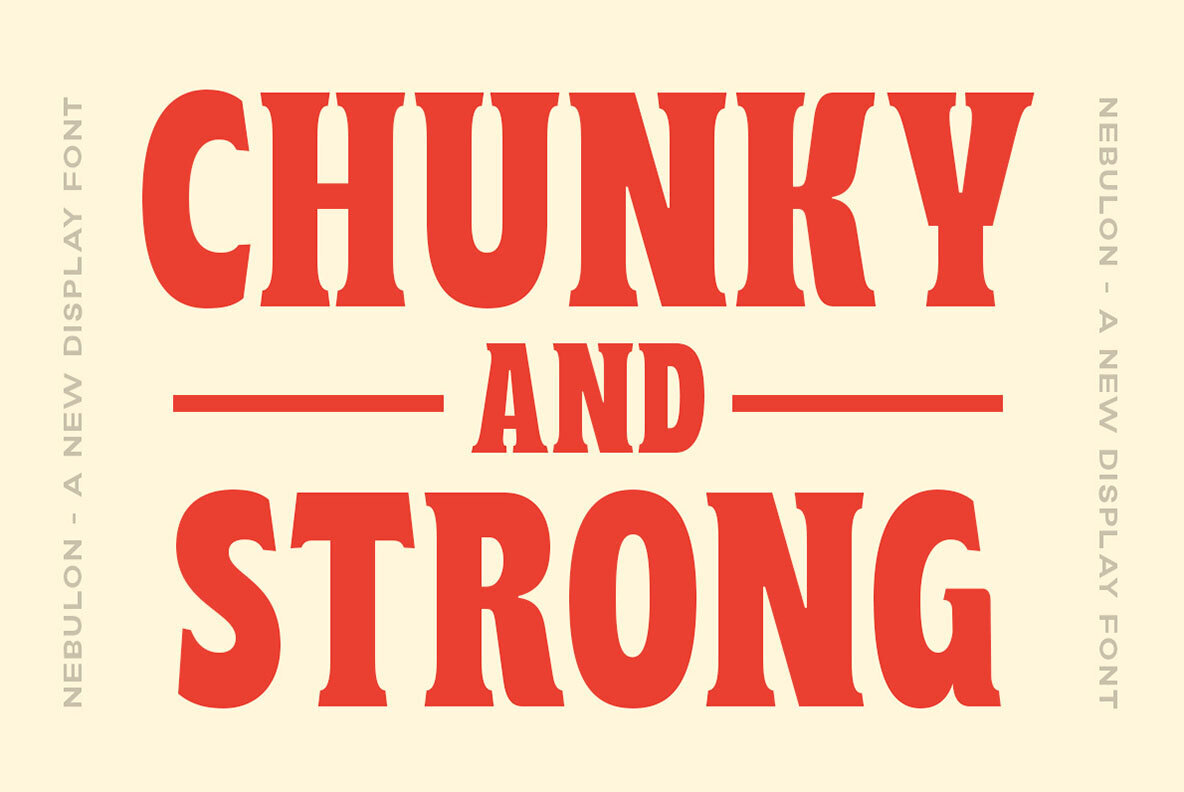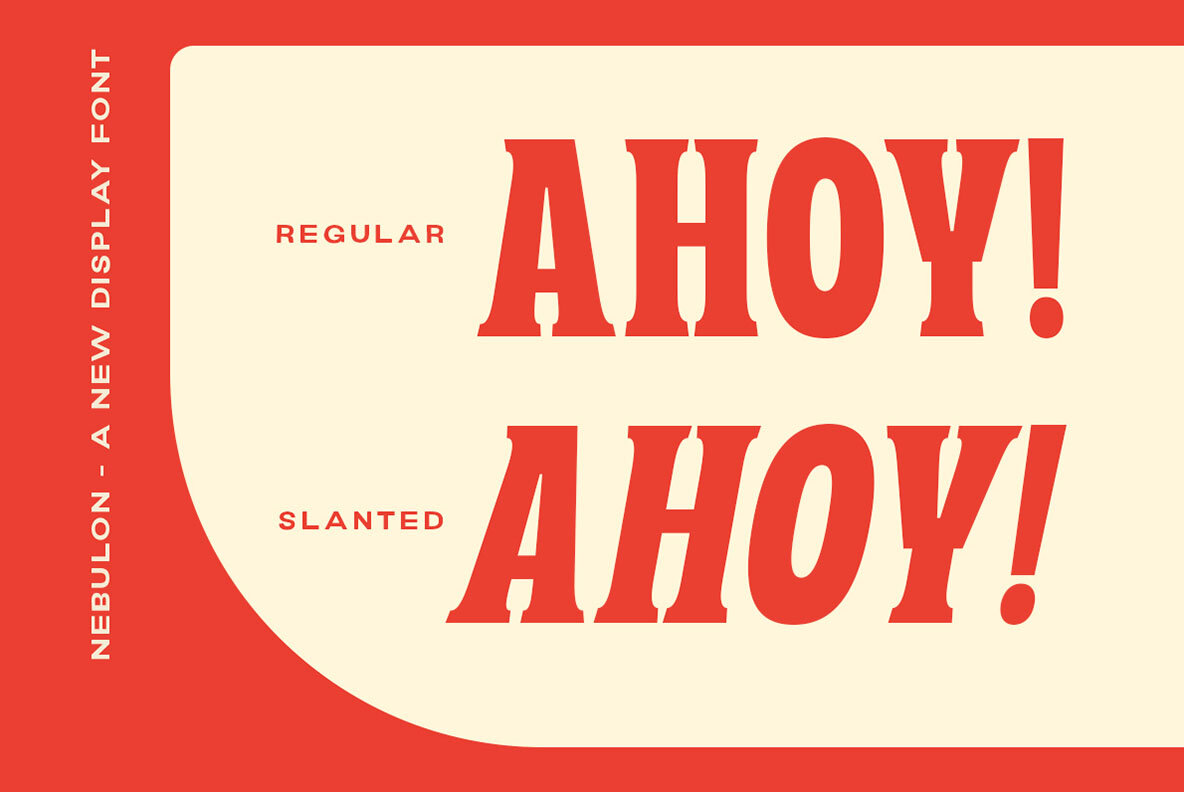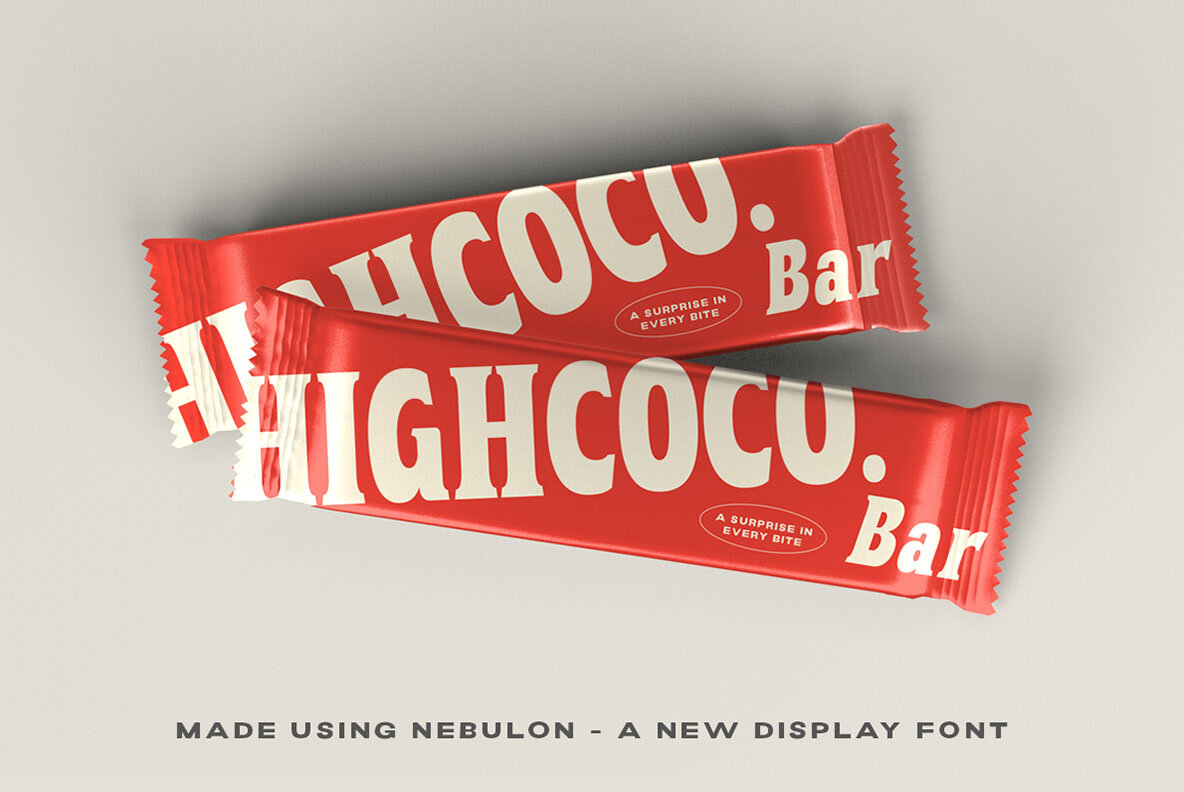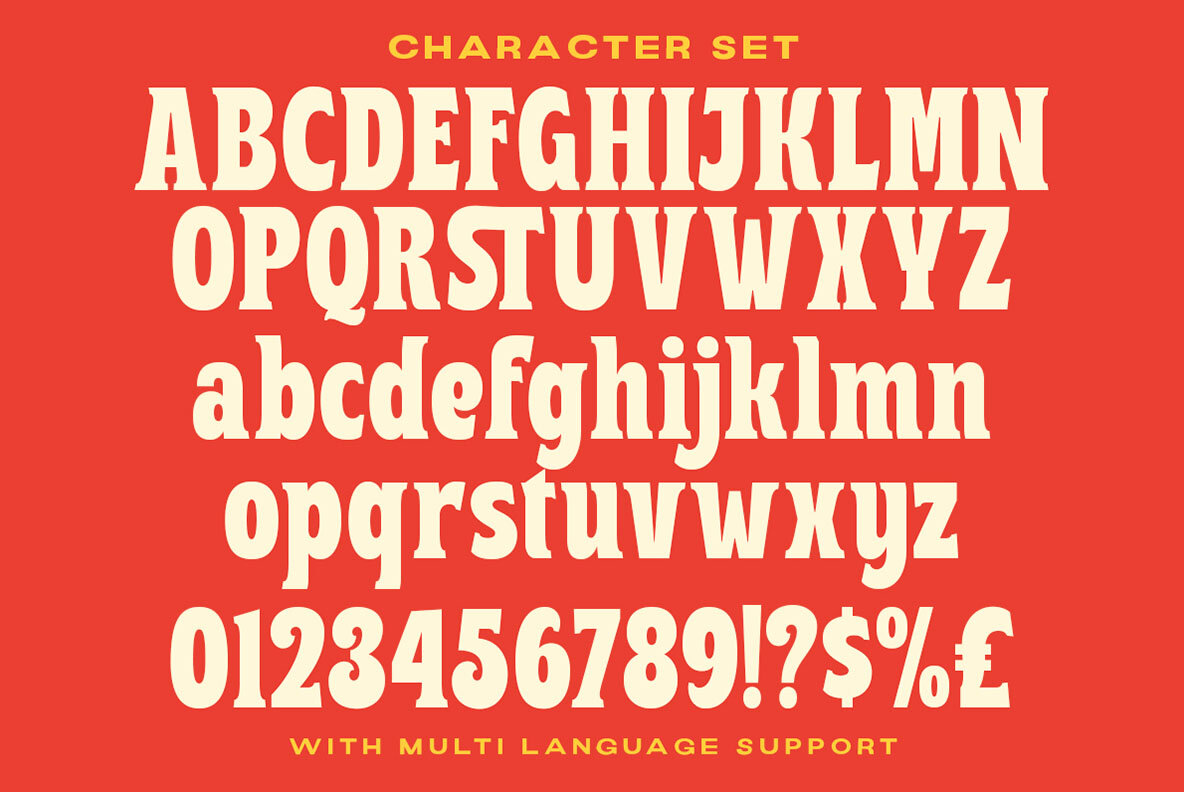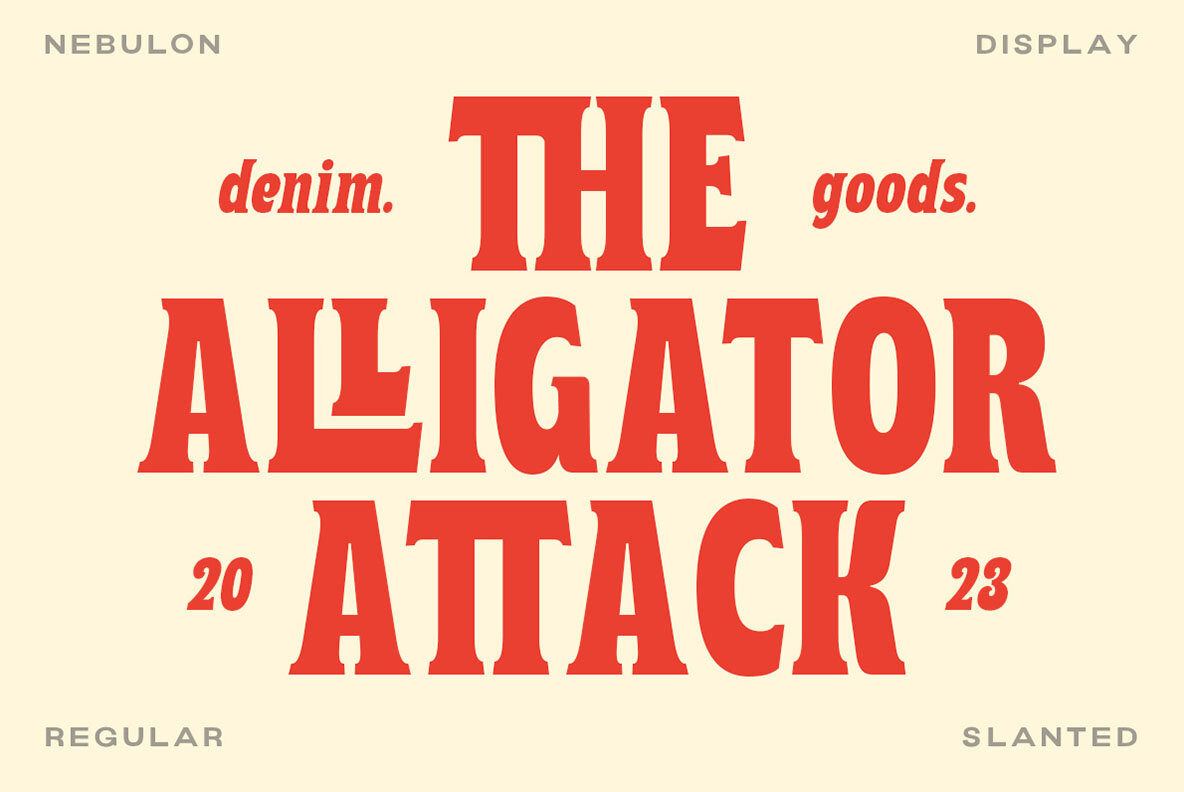
Nebulon Font
Nebulon offers a unique blend of classic letterforms, designed with versatility in mind. Ideal for logos and formal applications such as invitations, magazines, and more, this display font allows for creative expression through its available alternates and ligatures. To fully utilize Nebulon's features, we recommend using software that supports OpenType features and Glyphs panels, such as Adobe applications and Corel Draw.Nebulon: A Versatile Display Font with Classic Styling